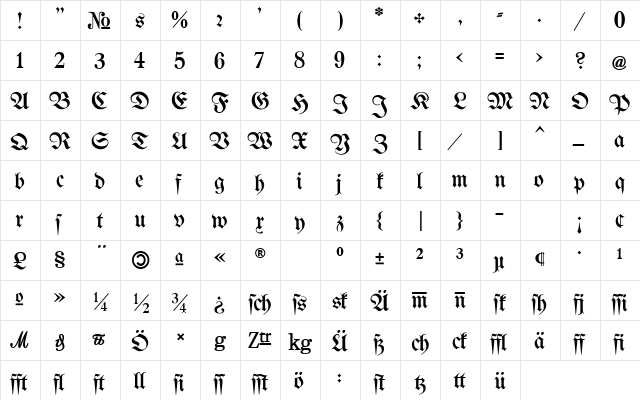
Bertholdr Mainzer Fraktur Regular
| Foundry | Peter Wiegel |
| Designer | Peter Wiegel, original typeface by Carl Albert Fahrenwaldt 1901 |
Design Context for Bertholdr Mainzer Fraktur Typeface
Bertholdr Mainzer Fraktur channels the dramatic heritage of Fraktur and Gothic scripts, bringing a sense of historical gravitas to any design.
Well-suited to band logos, craft beer branding, tattoo lettering, and heritage-themed identities.
Font Pairing: Pair with a clean neutral sans-serif for body copy to let Bertholdr Mainzer Fraktur's character lead without overwhelming the composition.
Pro Tip: Use Bertholdr Mainzer Fraktur sparingly at large sizes. Even a single word set in blackletter can define the visual register of an entire design.